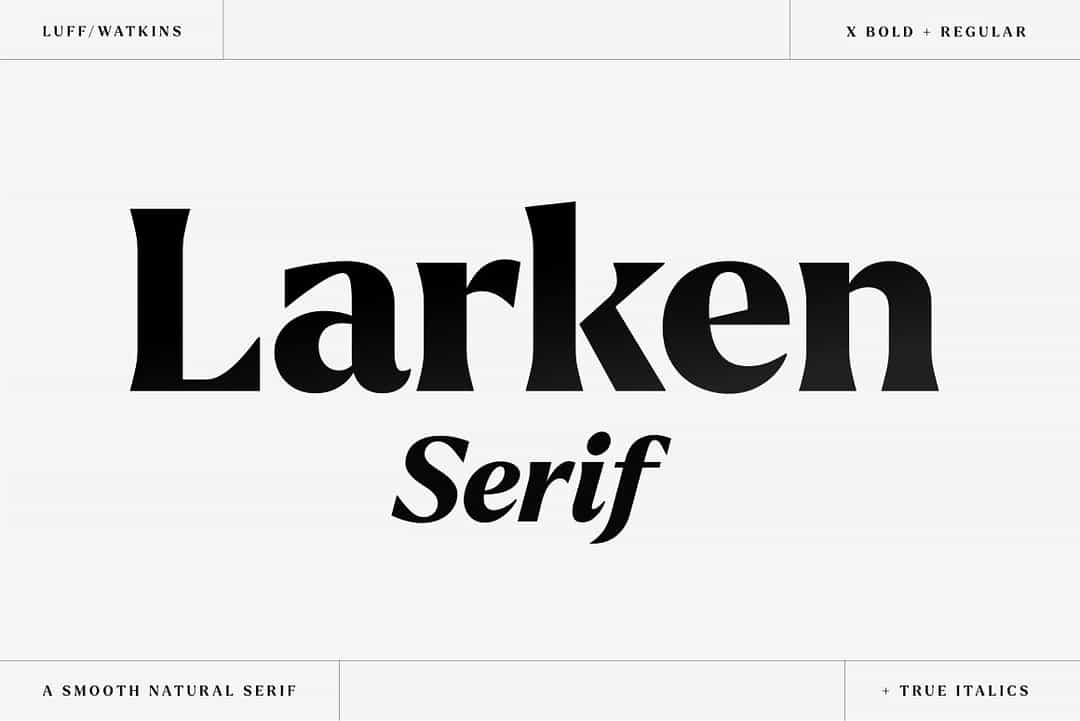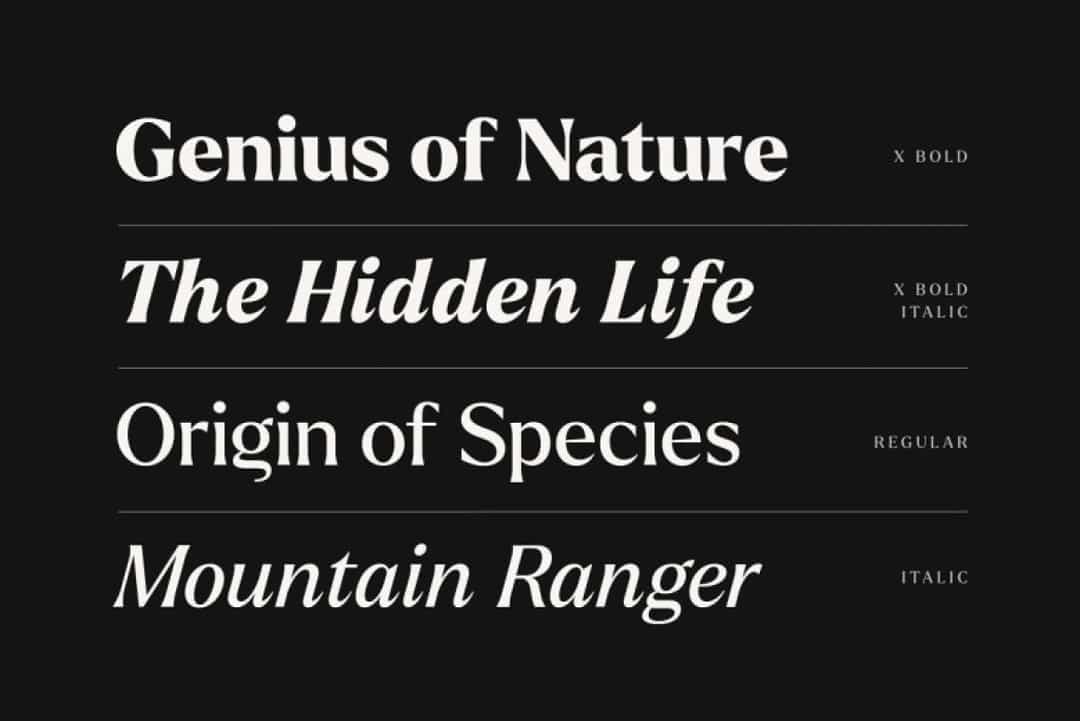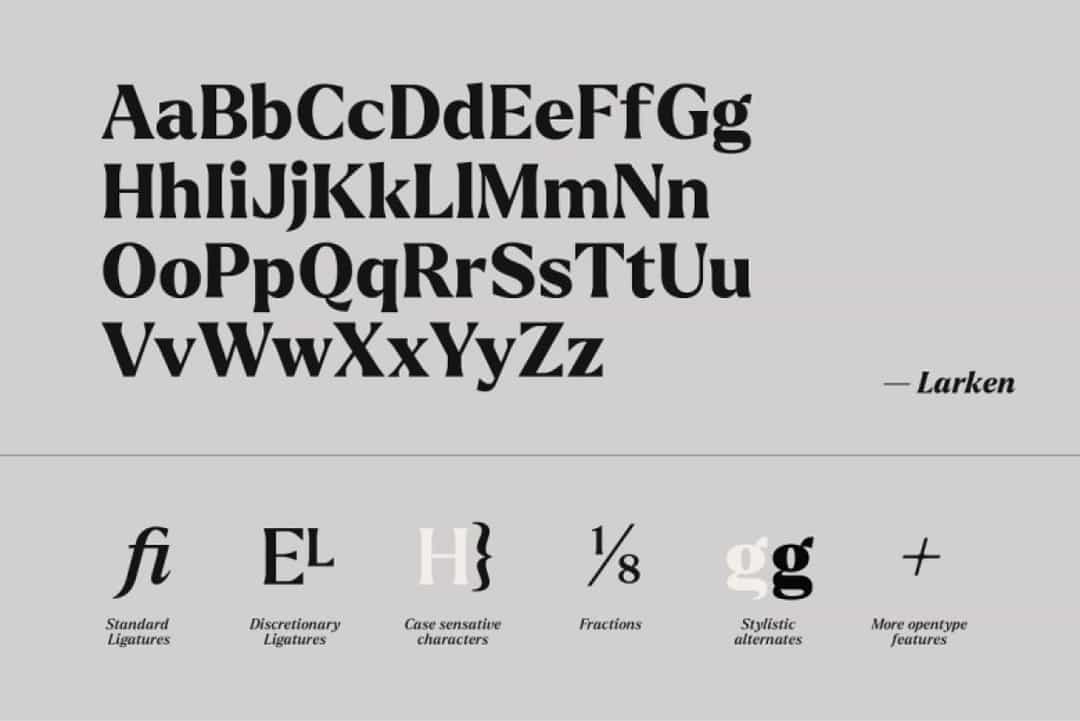
Larken is an eye-catching and flexible serif font family designed to reflect nature’s soft beauty while exuding expressiveness. Focused around usability, Larken Essentials allows designers to design with four distinct styles while supporting all major Latin languages; true italics add energy while making this font suitable for contemporary applications.